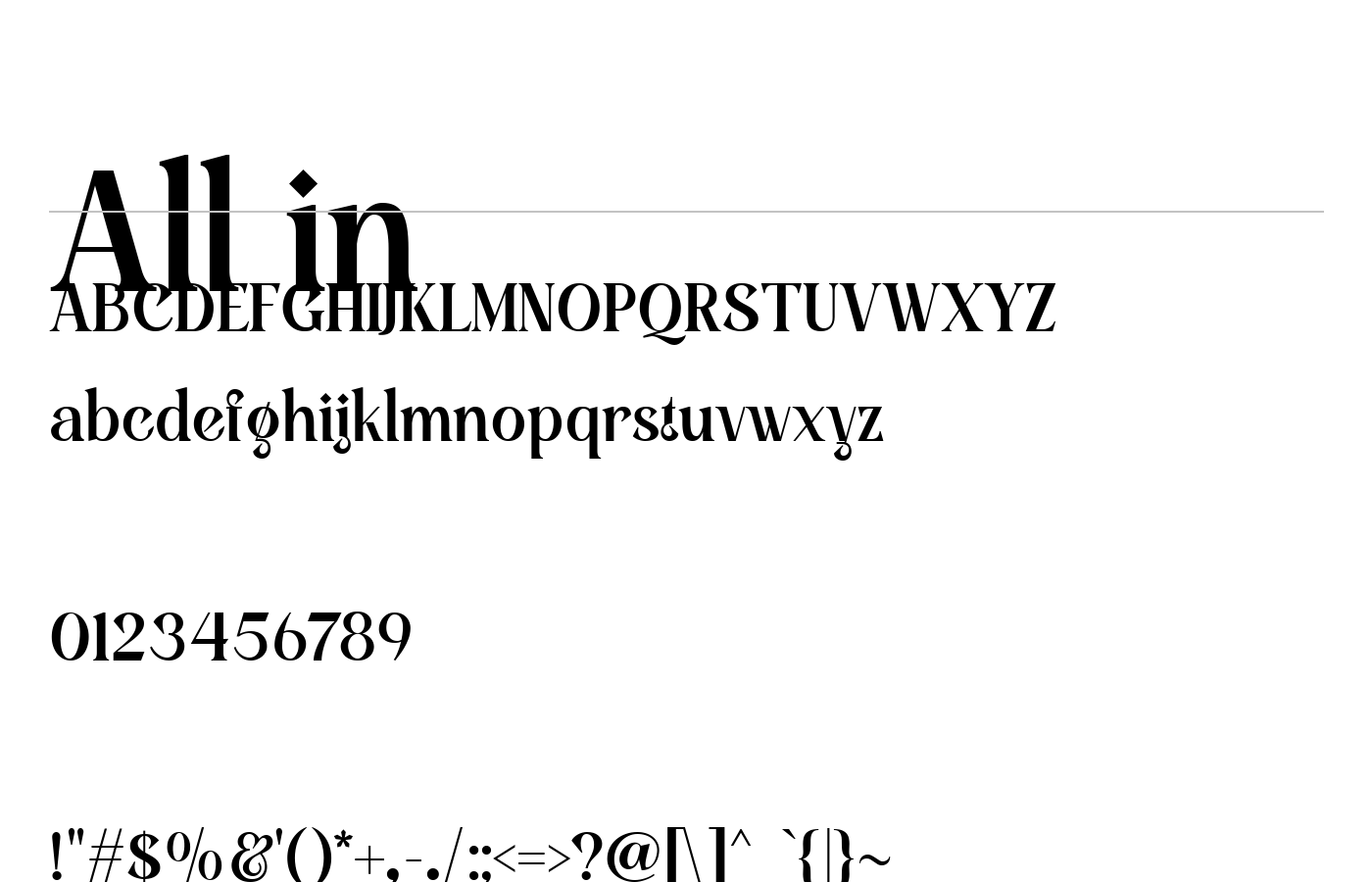
All in Font is a sophisticated serif typeface with a modern Didone style, featuring high contrast between thick and thin strokes and elegant, sharp serifs with subtle brackets. Its upright posture, single and double-story letterforms, and balanced x-height create a refined and formal look ideal for luxury branding, editorial headlines, and stylish packaging. This font’s graceful yet strong presence makes it perfect for designs seeking a classic, upscale feel with a contemporary edge.
All in Font
About All in Font